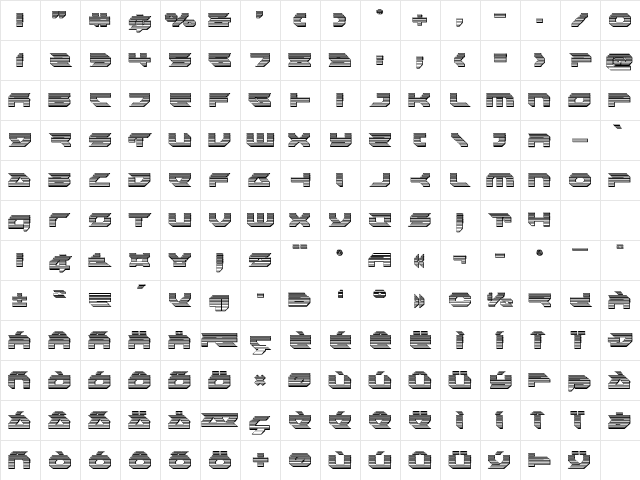
Complete Royal Samurai Chrome Regular glyph index. Displaying only characters natively supported by Royal Samurai Chrome Regular font.
Royal Samurai Chrome is a composed and adaptable typeface that performs quietly and consistently across a wide range of design contexts.